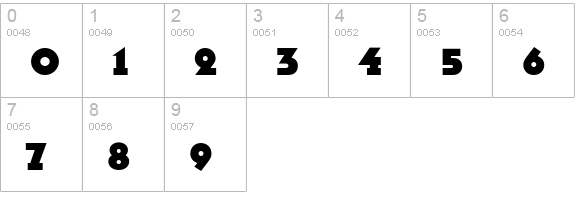
Epokha Plain Font Details
Epokha Plain is a modern and sleek font that exudes elegance and sophistication. Its clean lines and minimalist design make it perfect for a wide range of design projects, from branding to editorial layouts. The versatility of Epokha Plain allows it to be used in both bold headlines and subtle body text, making it a versatile addition to any designer's toolkit. The best part? Epokha Plain is available for free download at FontsMarket.com, allowing designers to access this high-quality font without any cost. Whether you're working on a personal project or a client's branding campaign, Epokha Plain is sure to elevate your design with its timeless appeal. Download this stunning font today and add a touch of modern elegance to your creative projects.